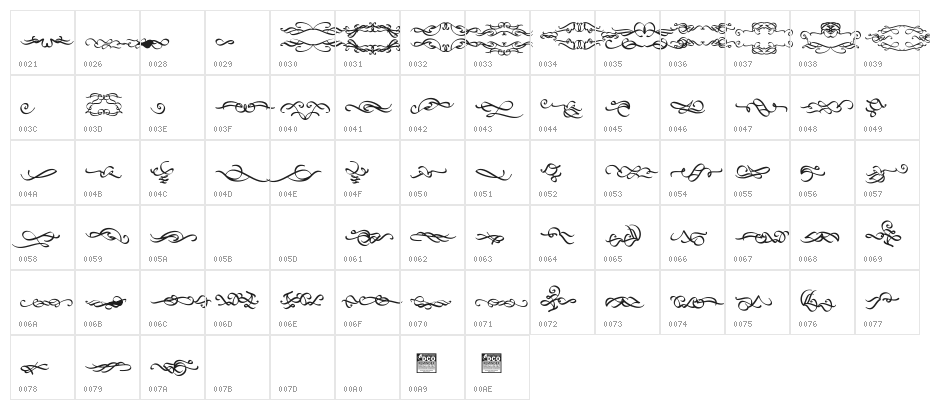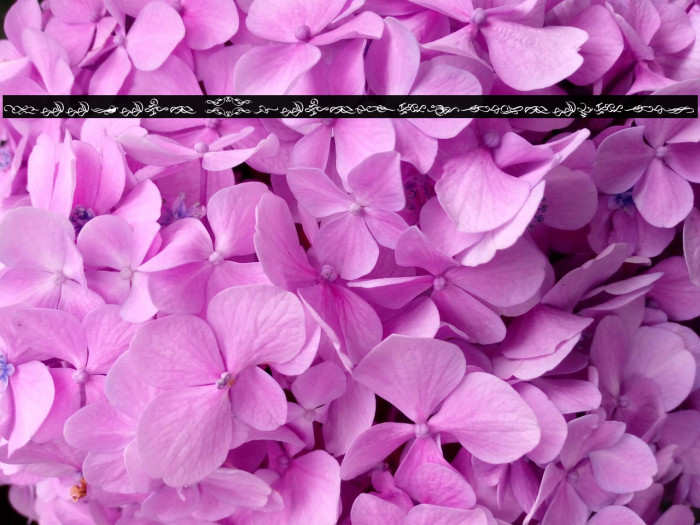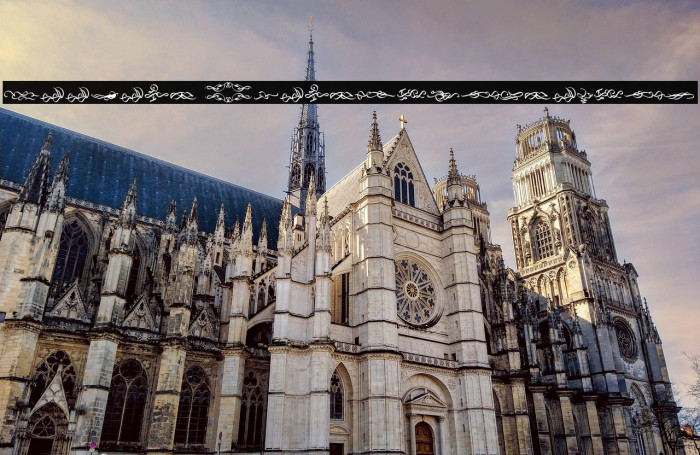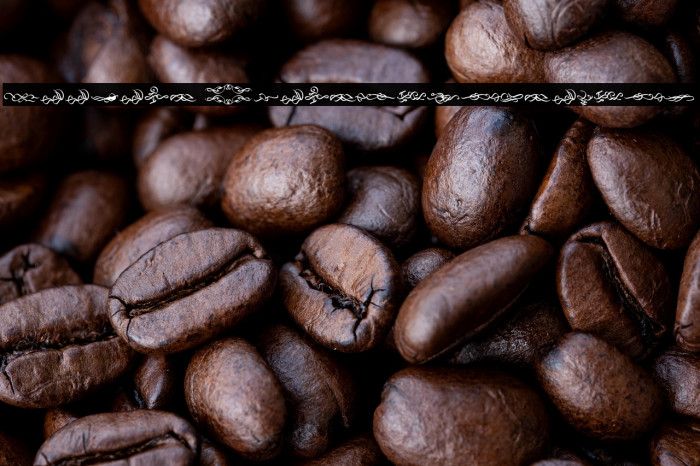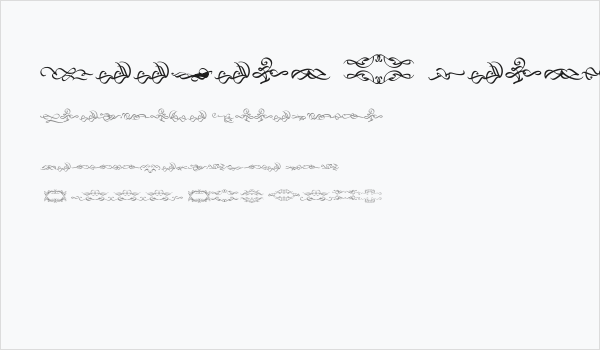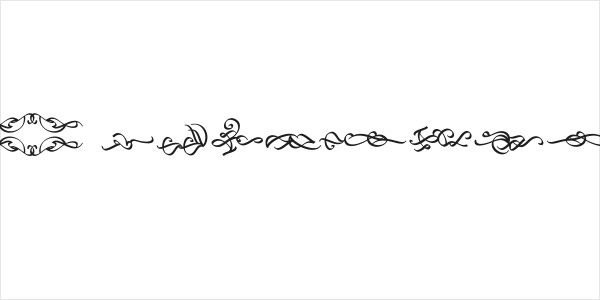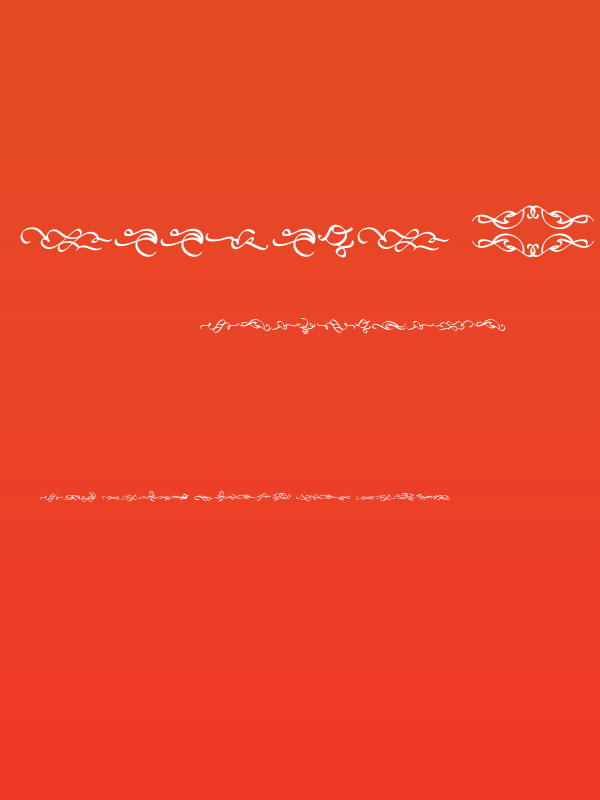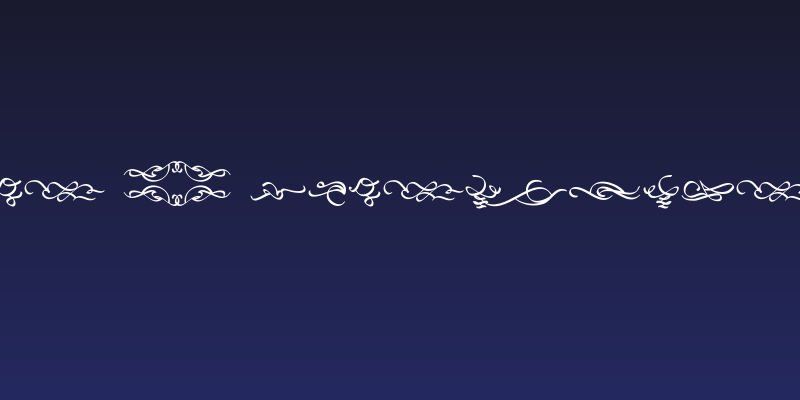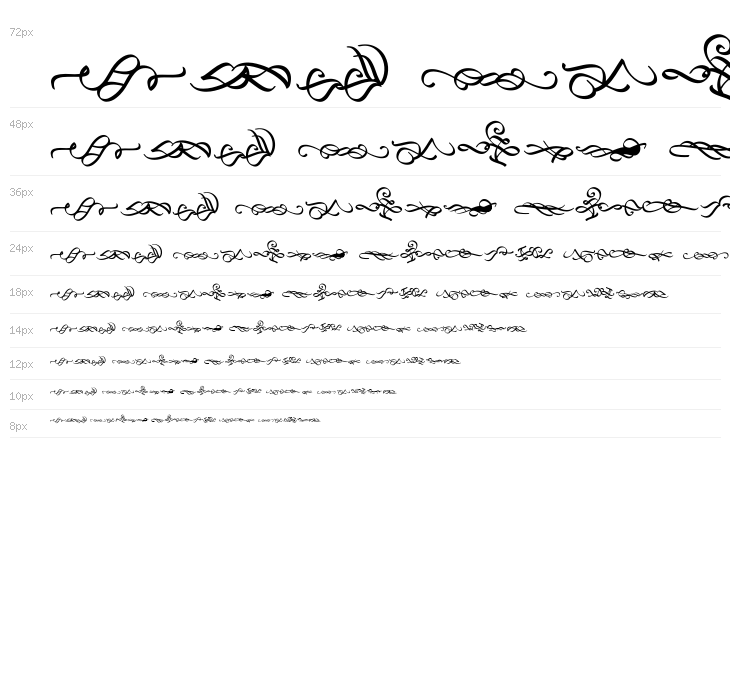
Seekers 2_PersonalUseOnly Font
Seekers 2_PersonalUseOnly Description
An ornate decorative font consisting entirely of intricate swashes, flourishes, and ornamental dividers, with no standard alphanumeric characters present. The glyphs are highly stylized and interconnected, resembling vintage calligraphic embellishments used for borders or section breaks.
| Overall Style | Decorative, Vintage, Ornamental |
| Use Case | Borders, Dividers, Decorative accents |
| Proposed Projects | Wedding invitations, certificates, vintage posters, decorative borders, event programs, scrapbooking. |